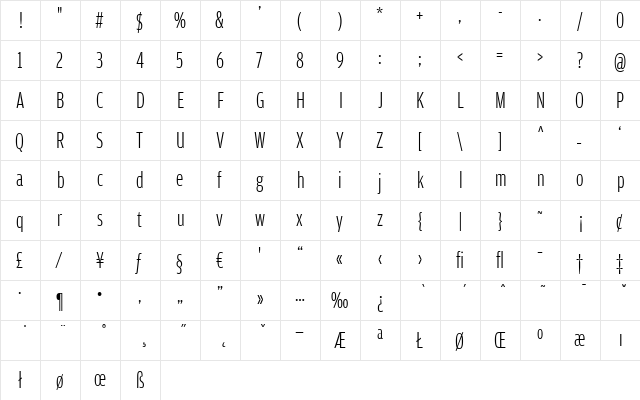
AmplitudeComp-Light Regular
| Foundry | The Font Bureau, Inc |
| Designer | Christian Schwartz |
Design Context for AmplitudeComp-Light Typeface
AmplitudeComp-Light offers clean, dependable letterforms without strong stylistic allegiance, making it a practical choice for designers who need flexibility. Its slender proportions lend an understated elegance to any composition.